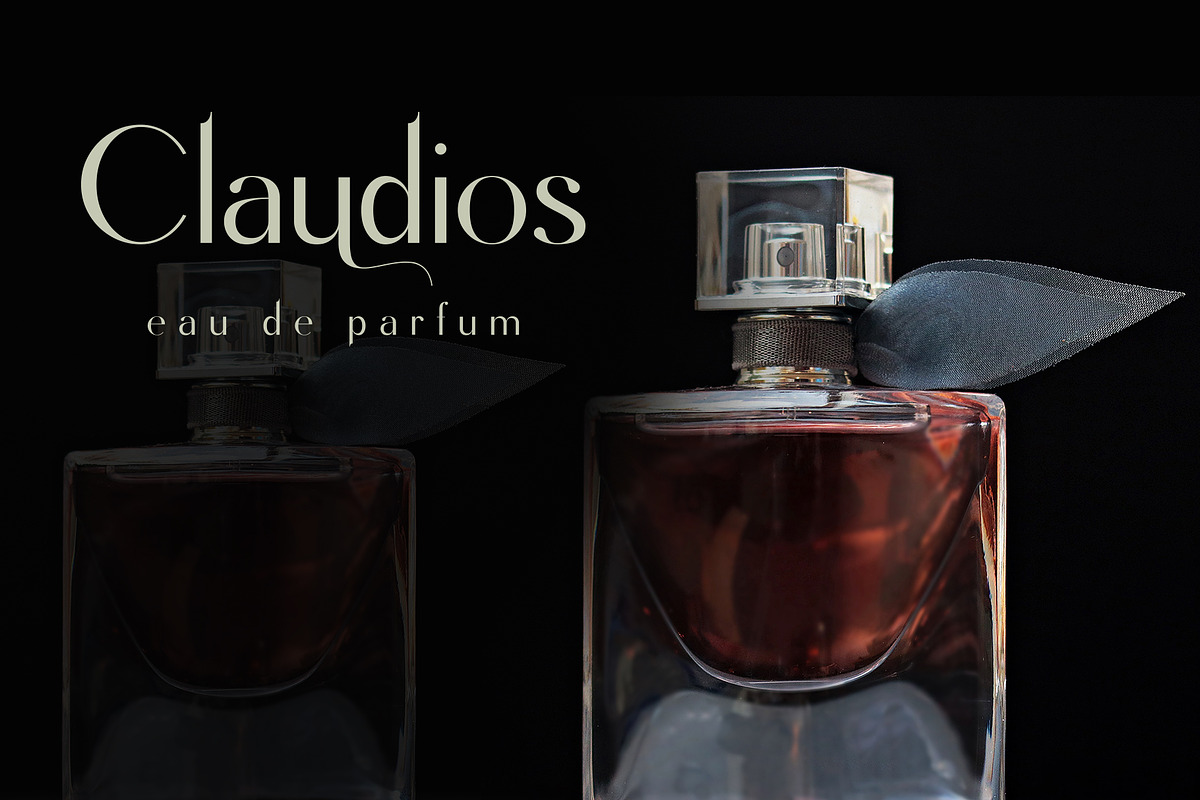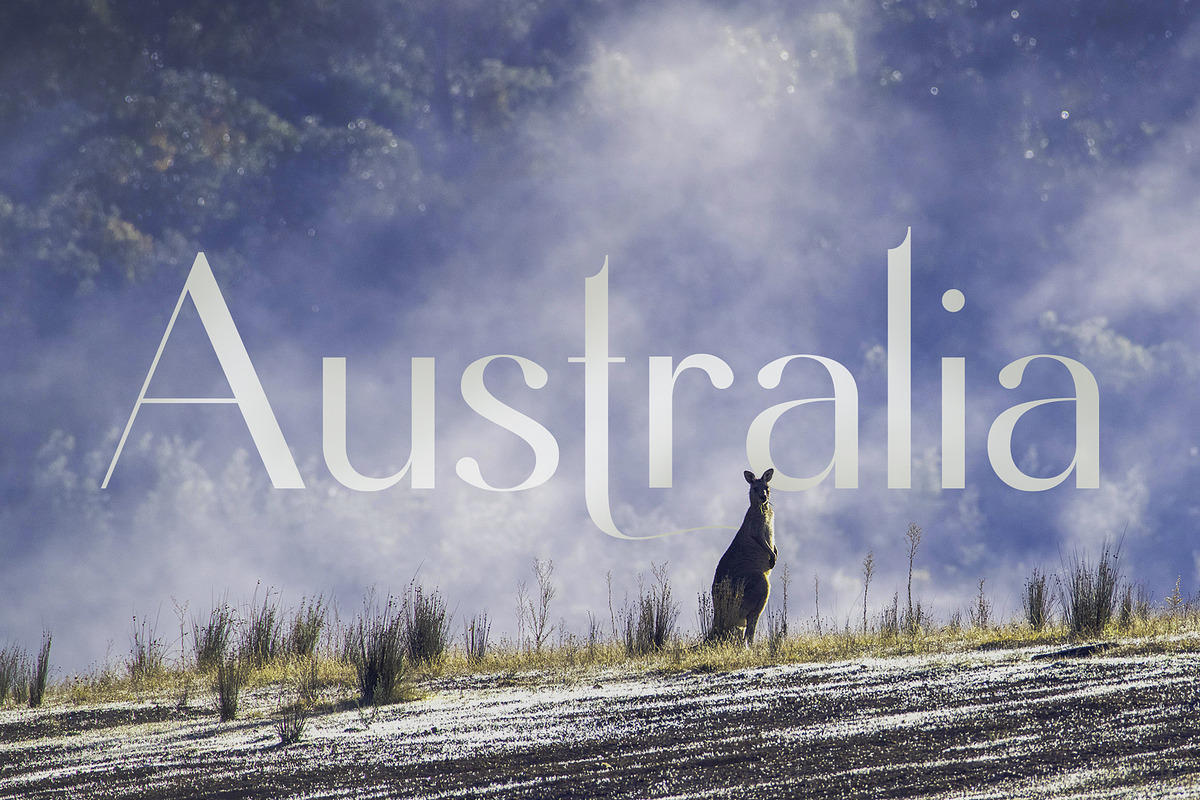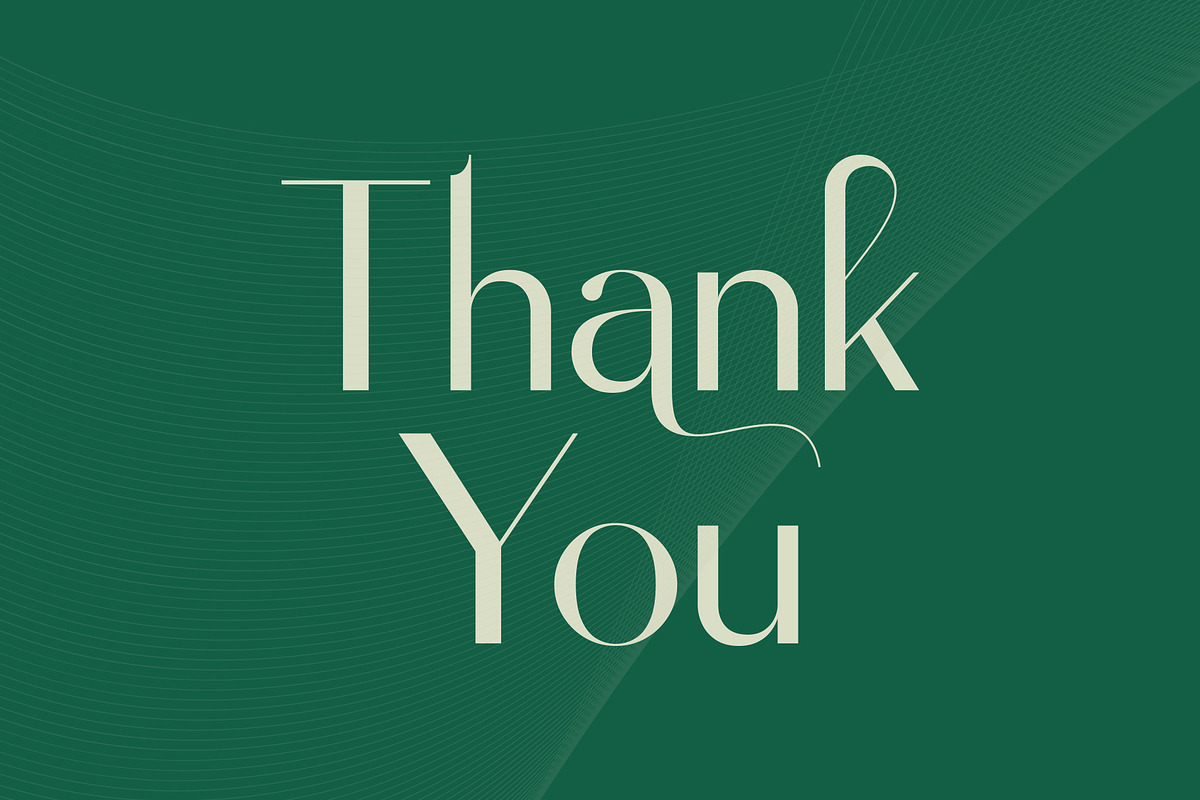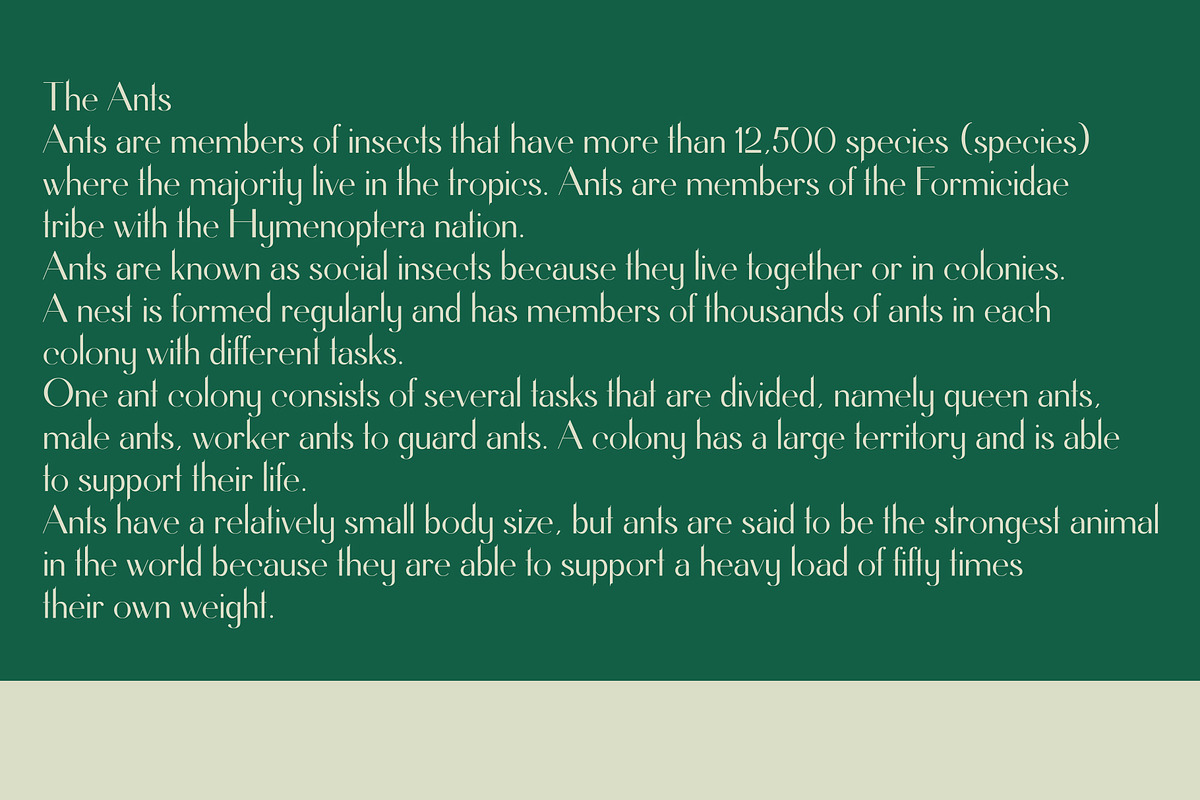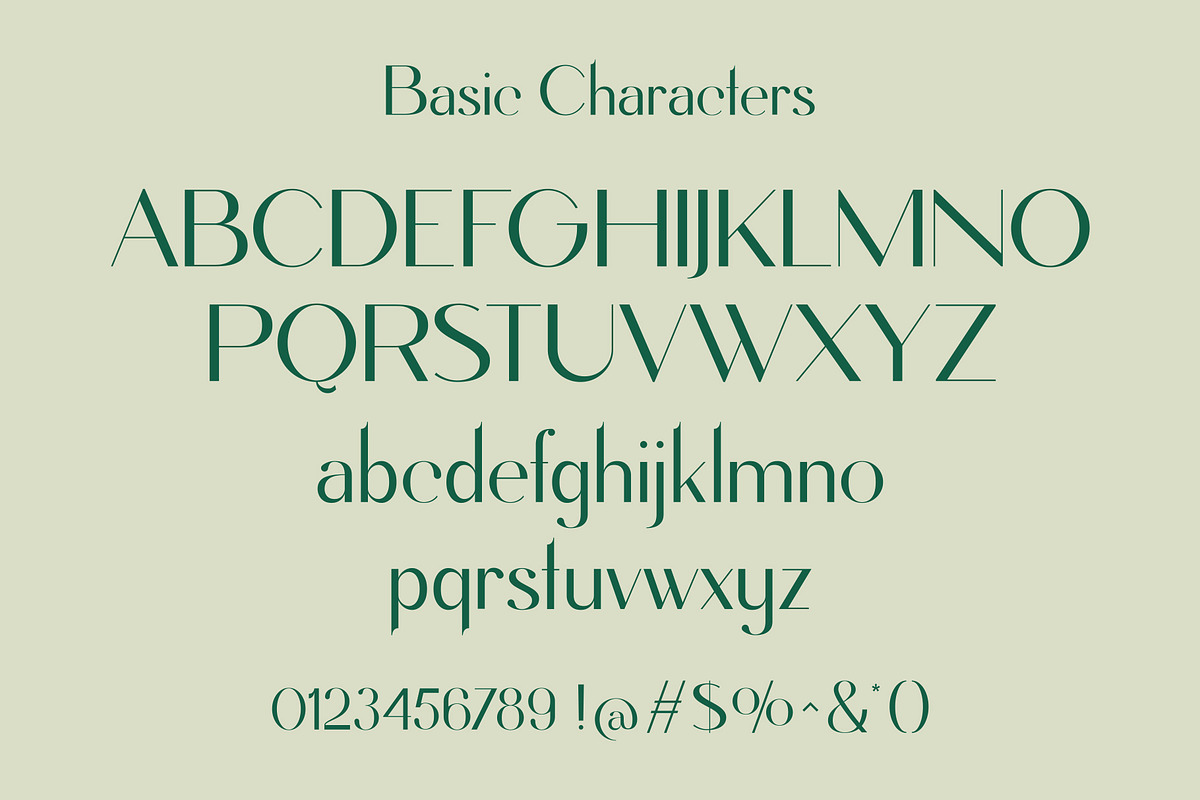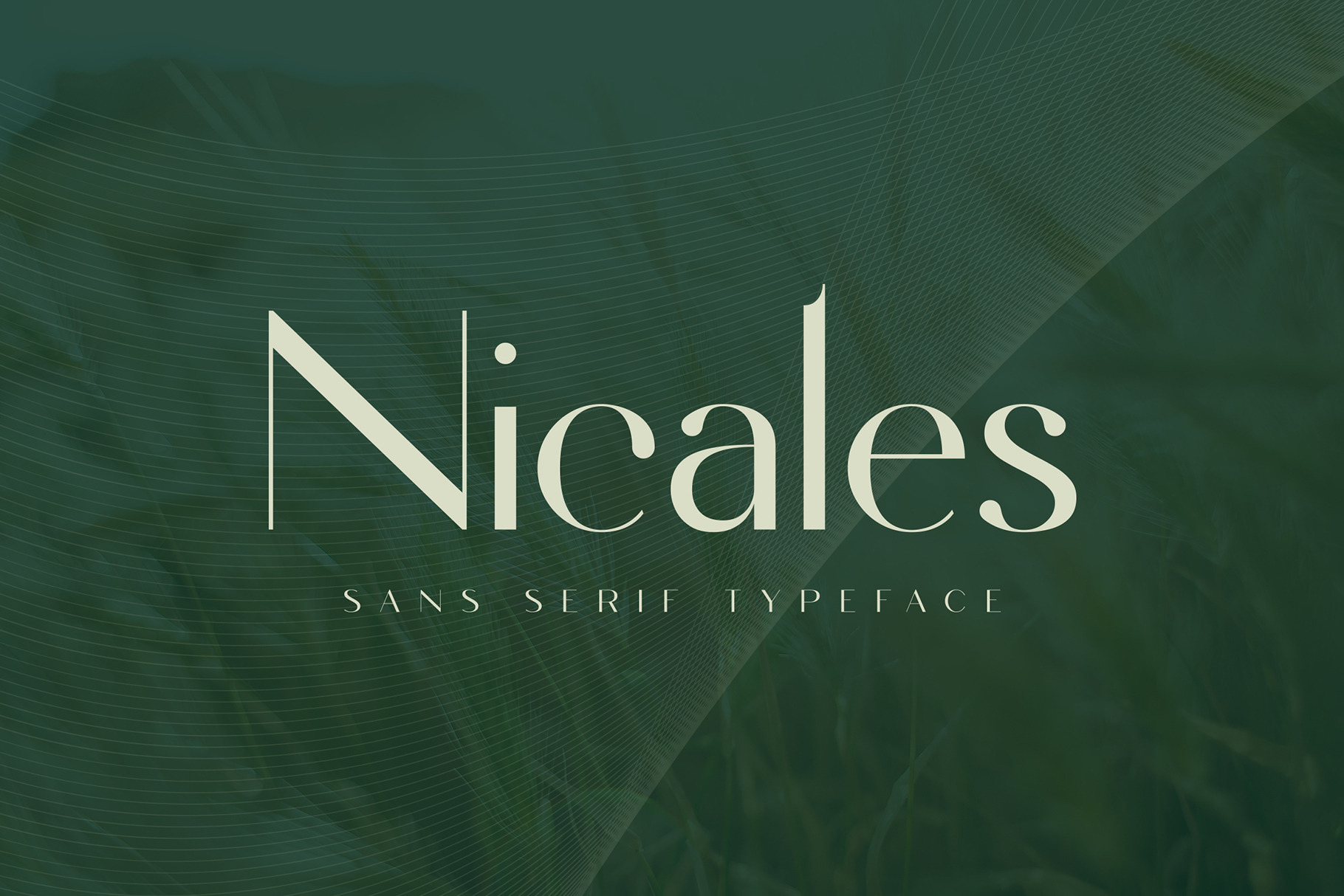
Nicales Typeface
Nicales | it’s a classy sans serif typeface with alternate characters it’s make perfect to create Elegant Design, Modern, Vintage, Retro and more. So Choice any Glyphs and create the awesome typography and design use this.